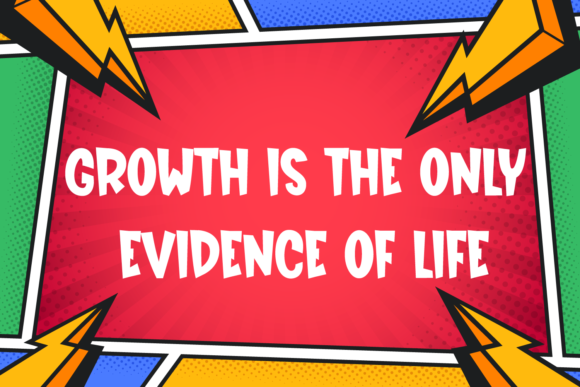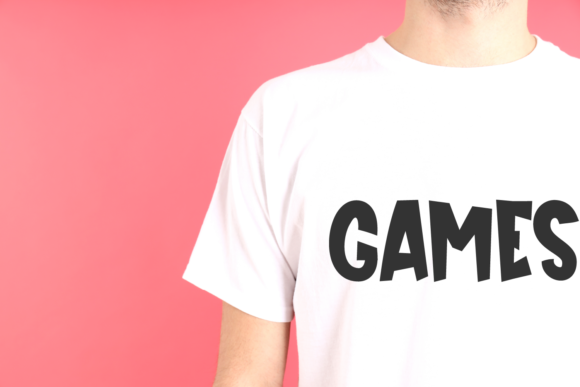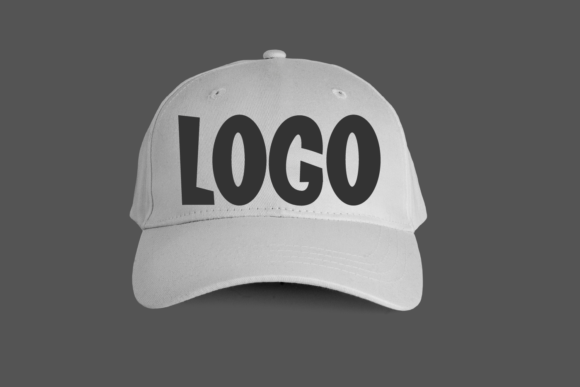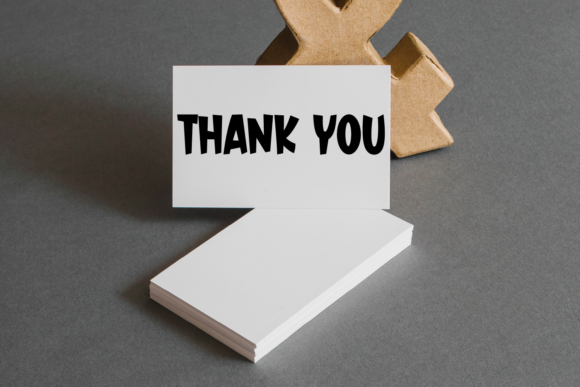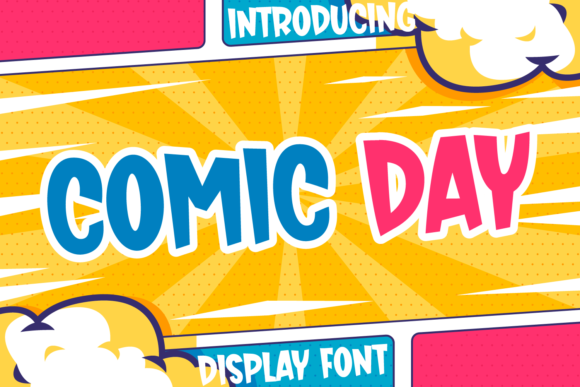
Introducing Comic Day Font: The Ultimate Display Font for Creative Projects
Are you a designer, crafter, or DIY enthusiast looking for a unique and cool display font to elevate your creative projects? Look no further than Comic Day Font! This exciting font is designed to add a touch of fun and playfulness to any design, making it a wonderful asset to your font library.
What Makes Comic Day Font So Special?
Comic Day Font is a one-of-a-kind display font that stands out from the crowd. Its unique and quirky design makes it perfect for a wide range of creative projects, from posters and flyers to social media graphics and crafts. Whether you’re working on a fun and lighthearted project or something more serious, Comic Day Font is sure to add a touch of personality and whimsy.
Key Features of Comic Day Font
- Unique and Quirky Design: Comic Day Font boasts a distinctive and eye-catching design that’s sure to grab attention.
- Cool and Playful: This font is perfect for projects that require a fun and lighthearted touch.
- Versatile: Comic Day Font can be used for a wide range of creative projects, from digital designs to crafts and DIY projects.
- Easily Readable: Despite its playful design, Comic Day Font is easy to read, making it perfect for headlines, titles, and short text.
How to Use Comic Day Font in Your Creative Projects
Comic Day Font is incredibly versatile and can be used in a variety of creative projects. Here are a few ideas to get you started:
- Posters and Flyers: Use Comic Day Font to create eye-catching posters and flyers for events, promotions, or announcements.
- Social Media Graphics: Add a touch of personality to your social media graphics, such as Facebook posts, Instagram stories, and Twitter headers.
- Crafts and DIY Projects: Comic Day Font is perfect for crafters and DIY enthusiasts who want to add a personal touch to their projects, such as handmade cards, gift tags, and decorations.
- Digital Designs: Use Comic Day Font in your digital designs, such as brochures, presentations, and infographics.
Why Comic Day Font is a Great Addition to Your Font Library
Comic Day Font is a valuable addition to any font library, offering a unique and versatile design that’s perfect for a wide range of creative projects. Here are a few reasons why you should consider adding Comic Day Font to your collection:
- Enhances Creativity: Comic Day Font is designed to inspire creativity and add a touch of personality to your designs.
- Time-Saving: With Comic Day Font, you can create professional-looking designs in no time, saving you time and effort.
- Consistency: Using Comic Day Font across your designs will help you establish a consistent visual identity and brand style.
In conclusion, Comic Day Font is a cool and unique display font that’s perfect for designers, crafters, and DIY enthusiasts. Its quirky design, versatility, and ease of use make it a wonderful asset to your font library. Whether you’re working on a fun and lighthearted project or something more serious, Comic Day Font is sure to add a touch of personality and whimsy. So why wait? Add Comic Day Font to your collection today and take your creative projects to the next level!